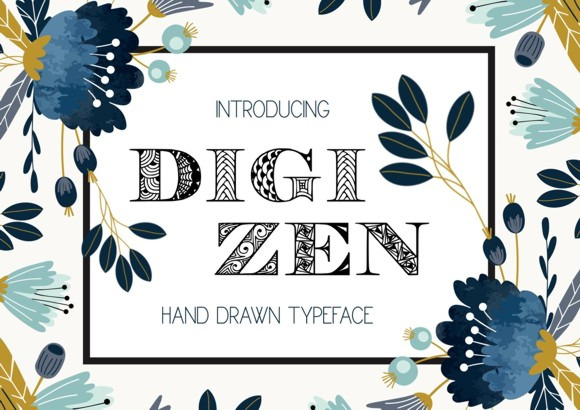
Digizen Decorative Font
Digizen is a carefully drawn font. It was drawn by hand on a digital tablet. Digizen is great for invitations, branding, logos, titling, signage, poster, flyers or t-shirts design, headlines and more!